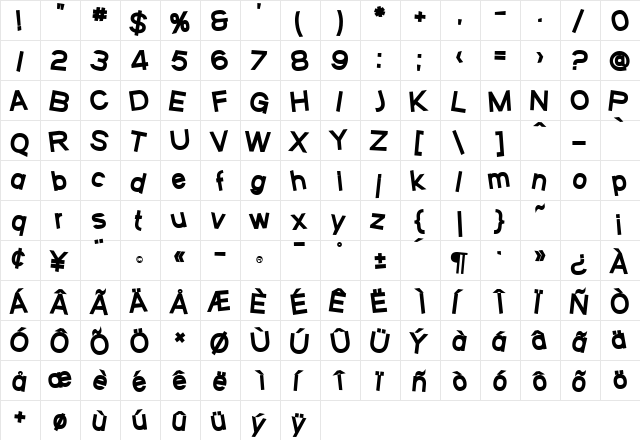
SF Beaverton Heavy
SF Beaverton offers clean, dependable letterforms without strong stylistic allegiance, making it a practical choice for designers who need flexibility.
Pro Tip: Use SF Beaverton in both headline and body roles to test its range before committing to a single application.